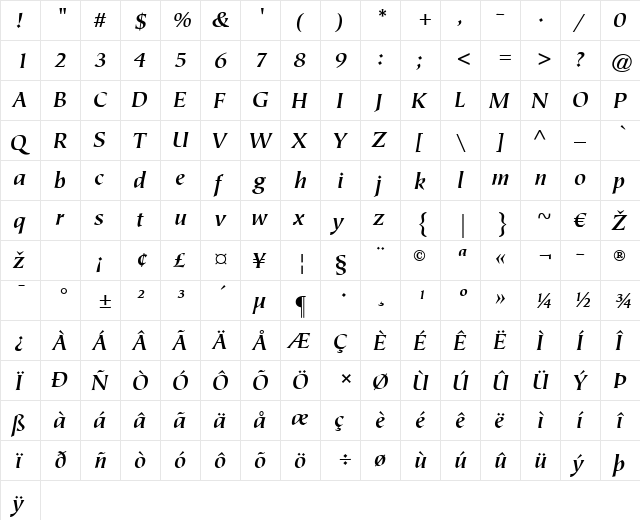
Tiepolo LT Book Bold Italic Font Preview
Design Context for Tiepolo LT Book Typeface
Tiepolo LT Book takes a measured approach to typography — its balanced proportions and neutral character make it a reliable workhorse for both digital and print work. The slanted form adds forward momentum and visual energy. The heavy weight commands attention and anchors typographic hierarchies.
Pro Tip: Try Tiepolo LT Book for annotation and caption copy alongside an upright companion — the contrast in angle creates a dynamic but ordered typographic system.